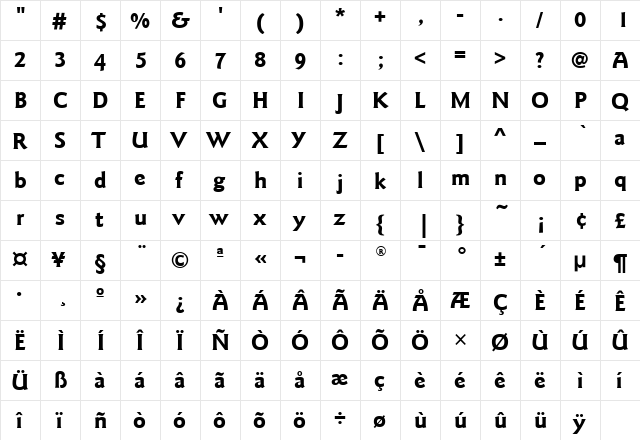
GoudySansITC Bold
Design Context for GoudySansITC Typeface
GoudySansITC takes a measured approach to typography — its balanced proportions and neutral character make it a reliable workhorse for both digital and print work. The heavy weight commands attention and anchors typographic hierarchies.